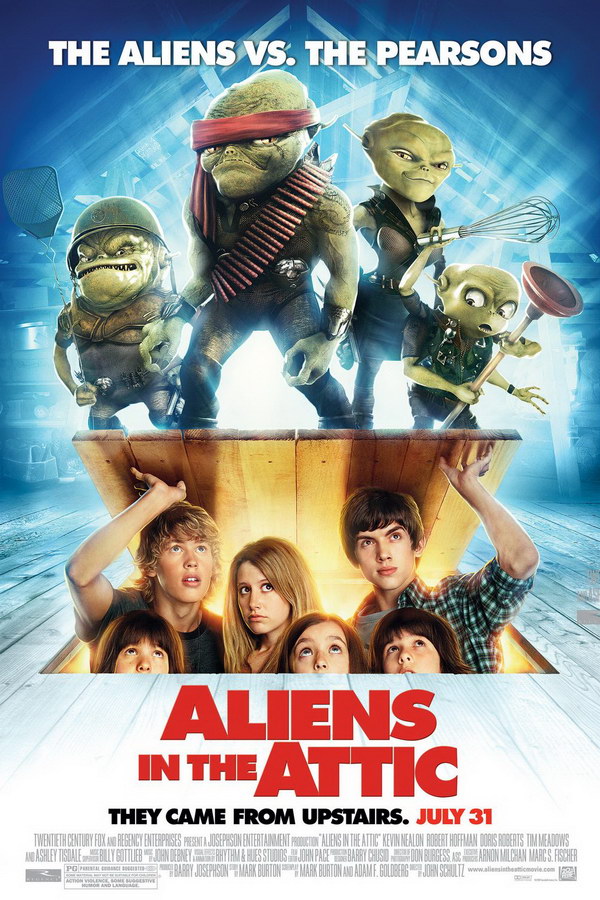
Aliens in the Attic Font
AdventureAliens in the Attic is a 2009 sci-fi comedy film about a group of aliens who land on Earth and take over the attic of a family's vacation home, causing chaos and adventure.
The font used for the ''Aliens in the Attic'' title in the poster is probably Futura Extra Bold, a font designed by Paul Renner in 1932 and introduced by Bauer Type Foundry. It is considered a significant development in typeface design and reflects Constructivist principles from the Bauhaus movement.